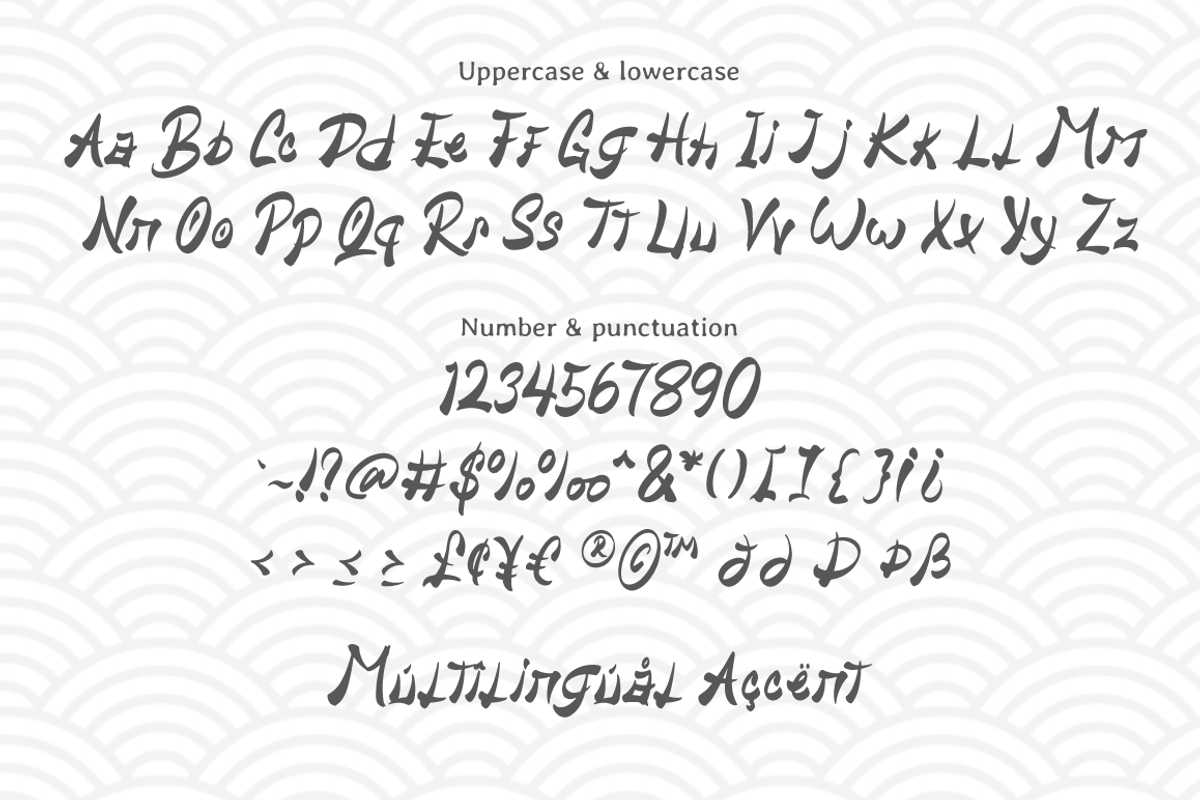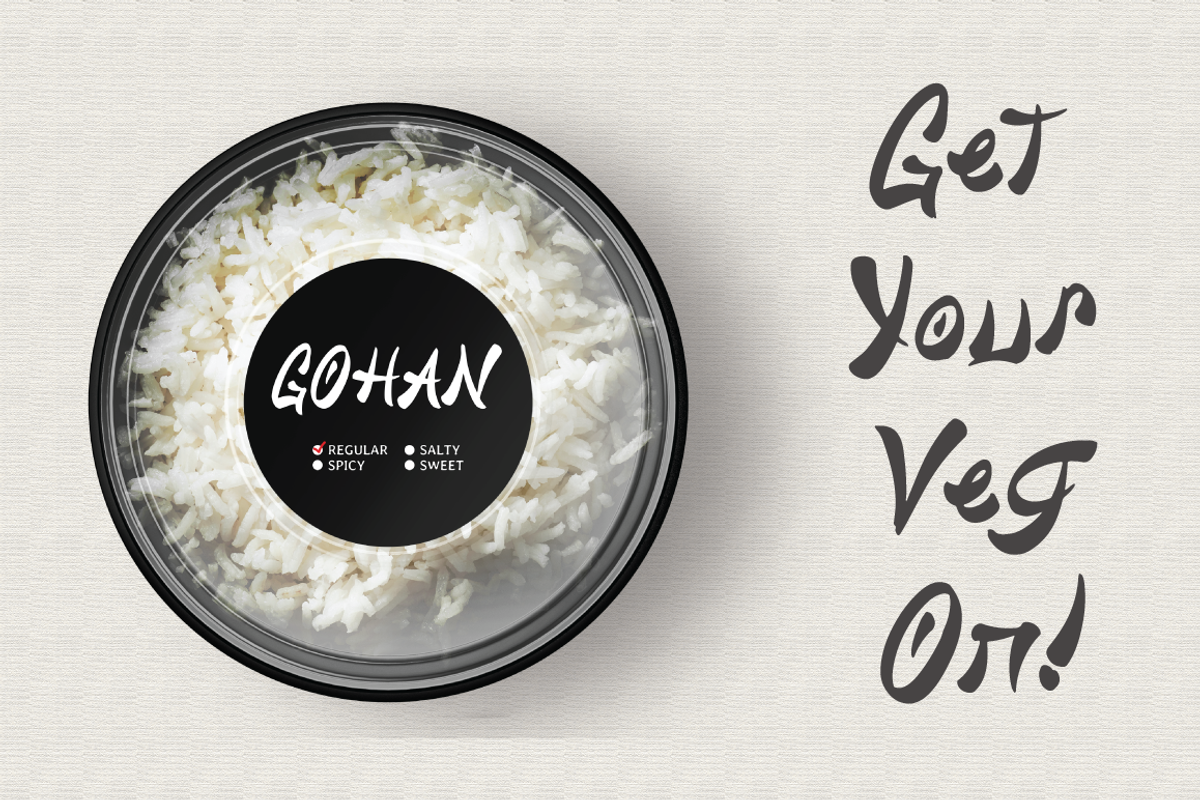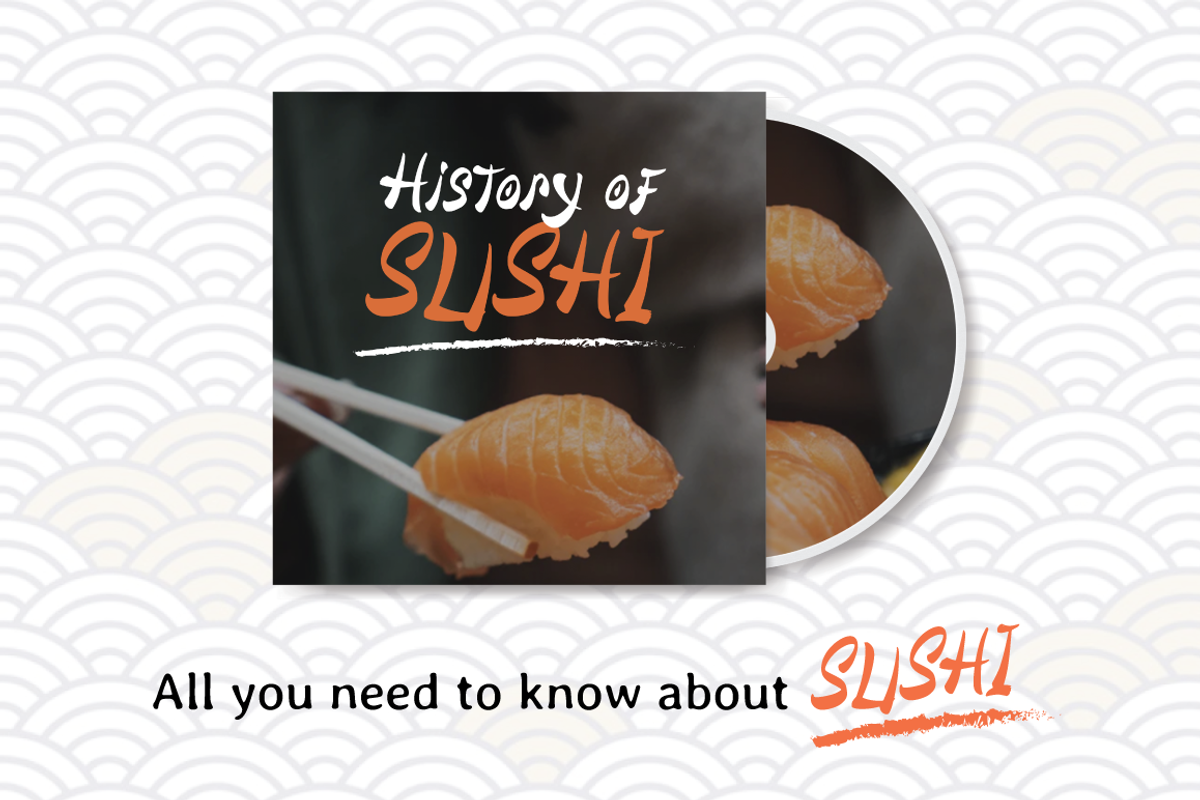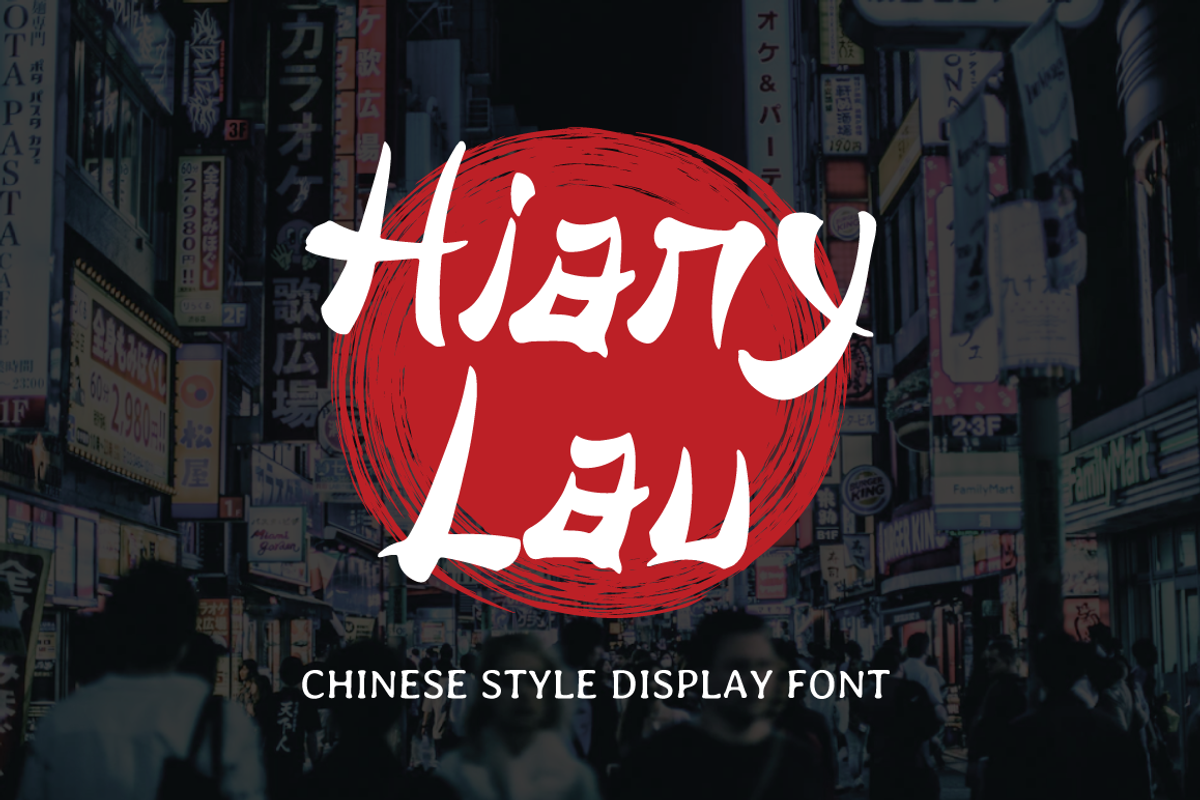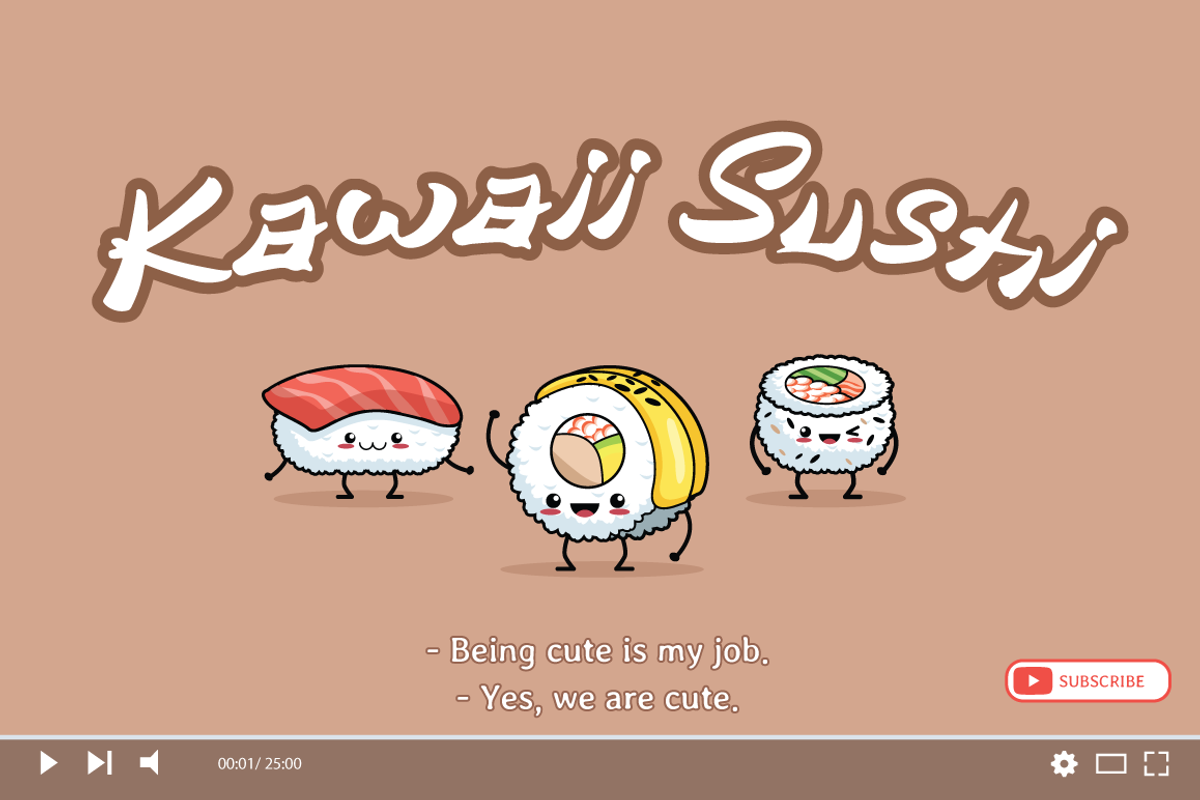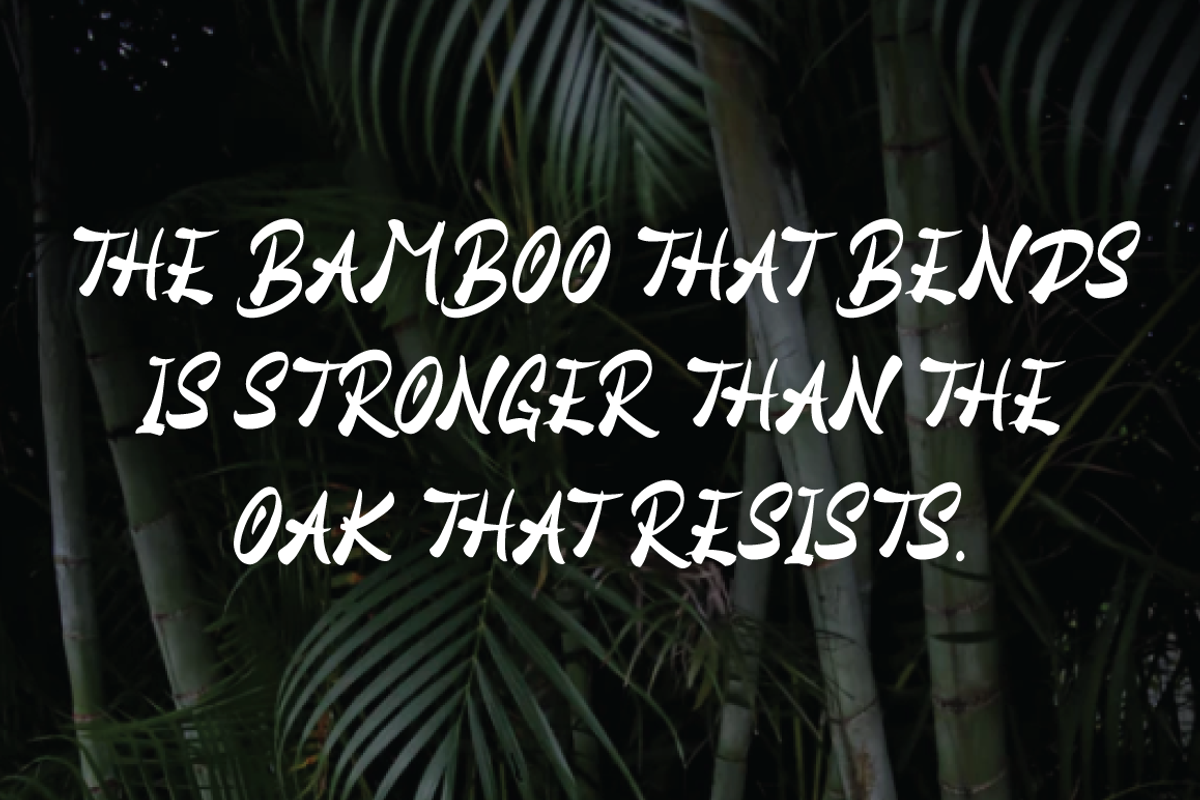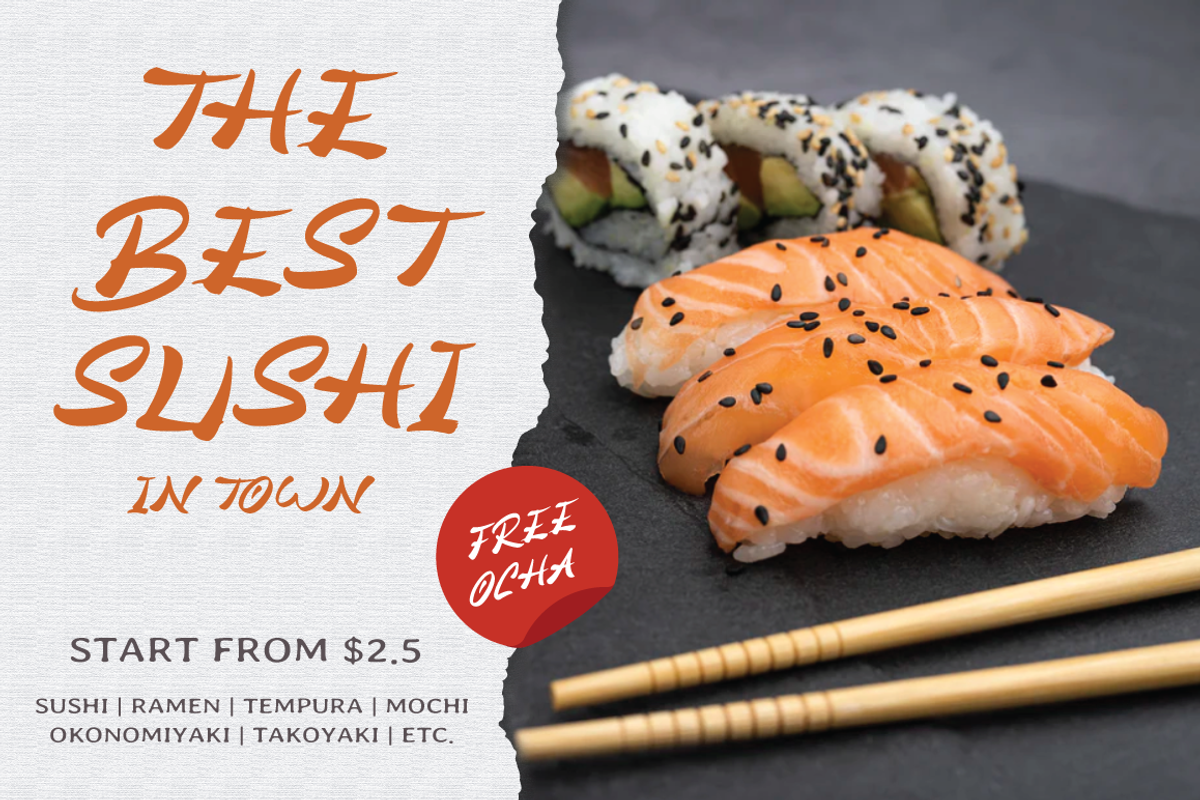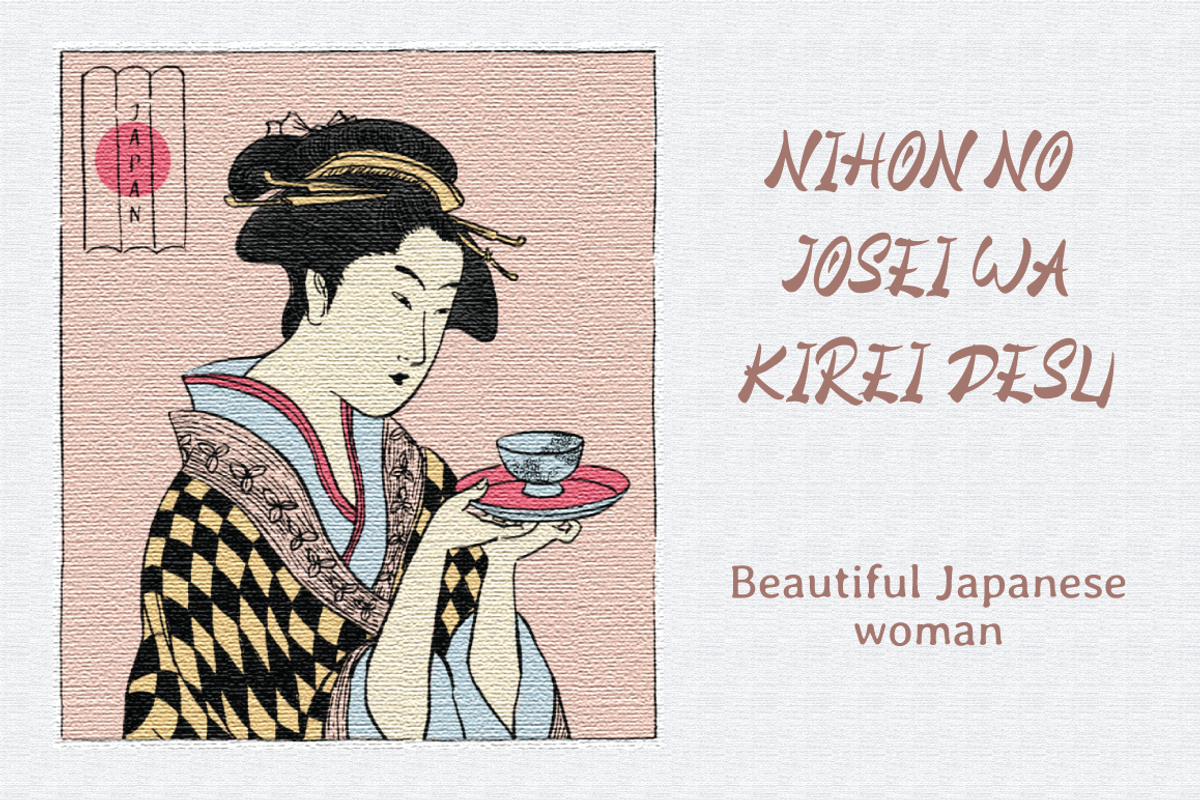
Hiany Lau - Chinese Display Font
Hiany Lau is Font that inspired by chinese letter style, perfect for any Asian theme of design & promotion to create spectacular designs!
Hiany Lau is perfect for branding, logo, invitation, stationery, social media post, product packaging, merchandise, blog design, game titles, cute style design, Book/Cover Title and more.